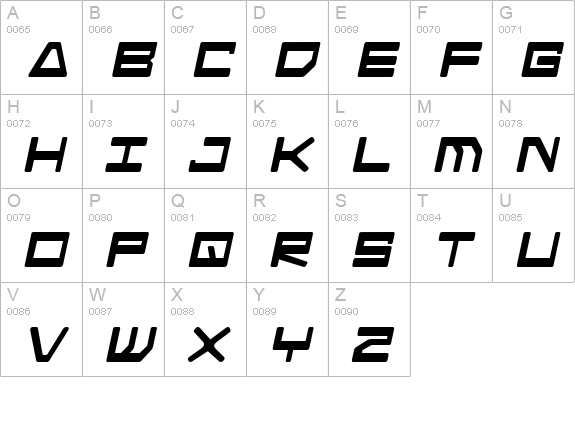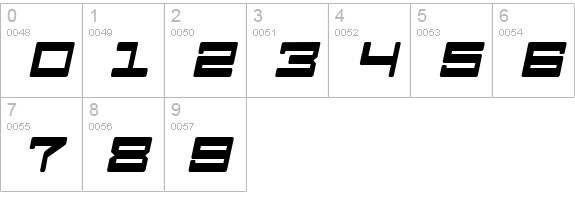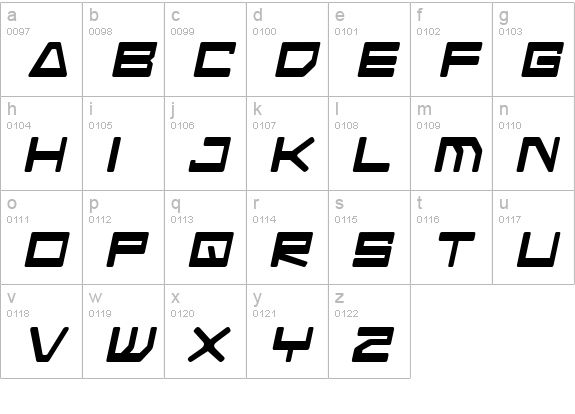
Android Nation Bold is a strong, high-contrast variant in the Android typeface family \xE2\x80\x94 well suited to headlines, attention-grabbing titles, and strong calls-to-action.
Android Nation Bold is a modern and versatile font that exudes confidence and strength. Its bold and impactful design makes it perfect for various design projects, from branding to headlines. The sleek lines and sharp edges of this font give it a futuristic and dynamic appearance, making it stand out in any context. What's even better is that Android Nation Bold is available for free download at FontsMarket.com. This means you can easily access this powerful font and incorporate it into your designs without any hassle. Whether you're working on a poster, website, or any other creative project, Android Nation Bold is sure to make a bold statement and leave a lasting impression. Download it today and elevate your design game with this striking and eye-catching font.